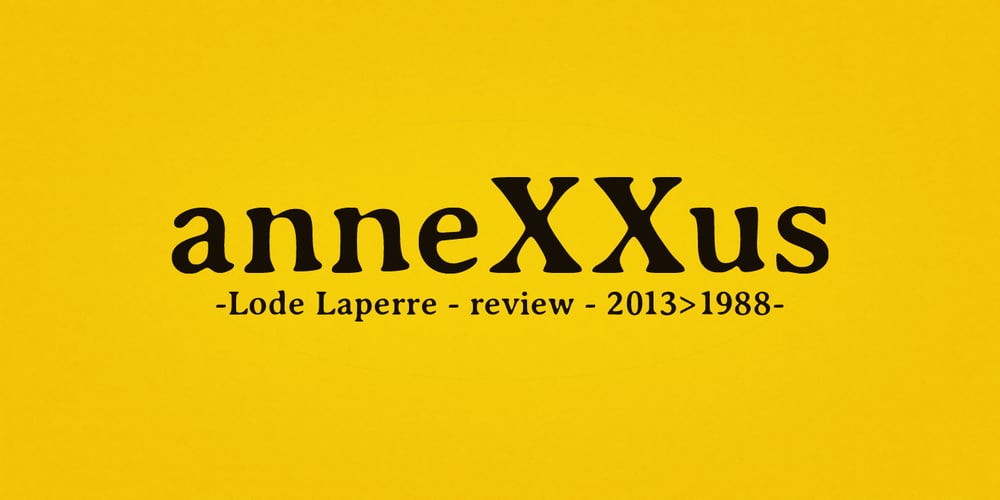
Annexxus
Annexxus font
Annexxus Font Family was designed by Coert De Decker and published by Kustomtype. Annexxus contains 5 styles and family package options. Kustomtype’s ‘Annexxus’ font just got a bold upgrade for 2025!This refined serif type family now features four distinctive versions, including a brand-new Italic—replacing the previous Oblique—and an added Bold weight for extra impact. Designed with precision, each weight and style is meticulously crafted to work harmoniously together.Why settle for outdated typefaces when you can elevate your posters, editorial designs, magazines, and artwork with ‘Annexxus’? Classic, stylish, and effortlessly bold—this font makes a statement.Because a great font doesn’t have to be perfect to be unforgettable!